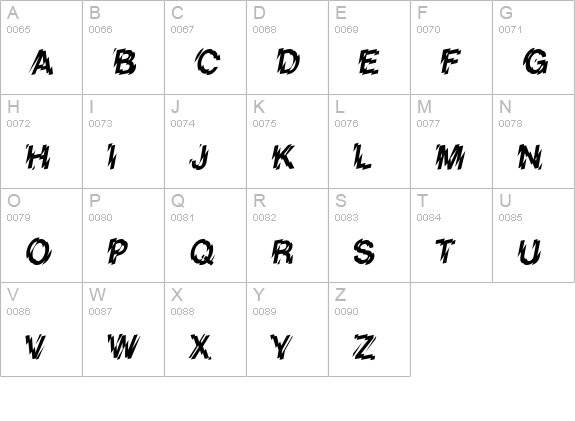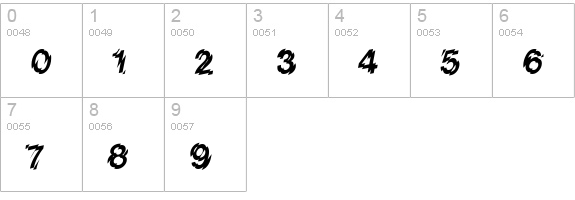
Introducing Shatter Plain, a captivating font that exudes a sense of raw, untamed energy. With its bold and angular features, this typeface commands attention and makes a powerful statement. Each letter is carefully crafted to appear shattered, as if it has been forcefully broken apart, creating a unique and edgy visual effect. Shatter Plain is perfect for designs that require a strong and impactful presence. Whether you're working on a poster for a rock concert, a logo for a sports team, or a bold headline for a magazine, this font will add a touch of dynamism and intensity to any project. What makes Shatter Plain even more appealing is that it is freely available to download at FontsMarket.com. Yes, you read it right - this stunning font can be yours without any cost. This means that you can unleash your creativity and incorporate Shatter Plain into your designs without any restrictions or limitations. So why wait? Experience the power and versatility of Shatter Plain font today and take your designs to new heights. Download it now, exclusively at FontsMarket.com and embark on a journey of creativity and innovation.